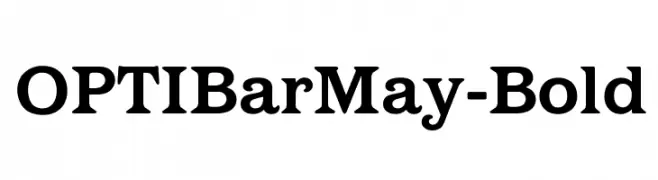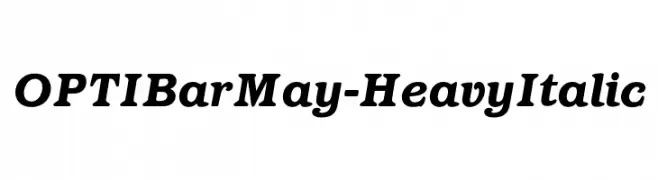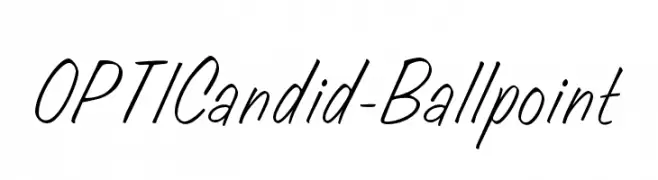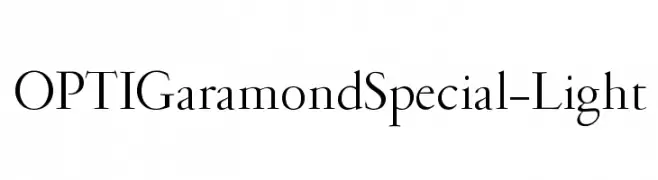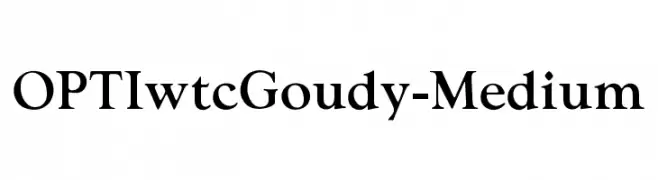
A modern, condensed font with tall, narrow characters and uniform stroke width.
A modern, elegant italic font with medium contrast and sharp serifs.
A classic serif font with modern elegance and clear readability.
A classic serif font with elegant, thin strokes and a timeless appeal.
A classic serif font with elegant curves and light weight, perfect for formal use.
A bold serif font with a classic and authoritative style.
A bold, italic serif font with strong, dynamic strokes and prominent serifs.
A casual, handwritten-style font with fluid, slanted strokes.
A medium-weight, italic serif font with a classic and elegant style.
A classic serif typeface with elegant lines and moderate contrast.